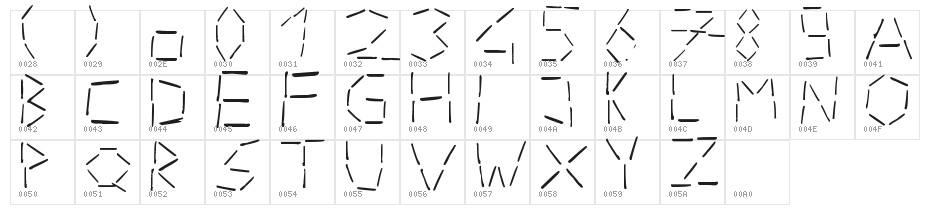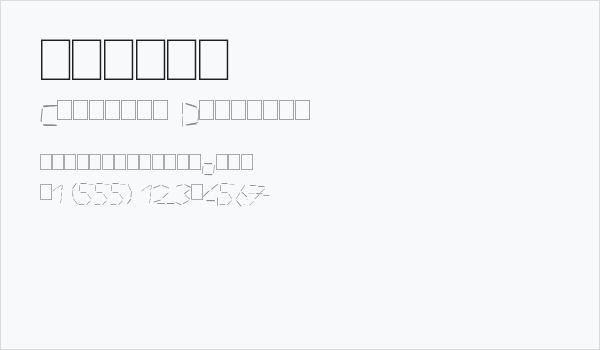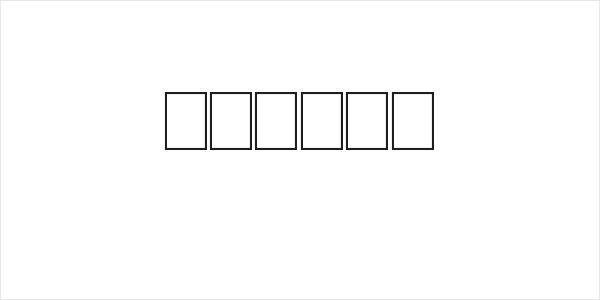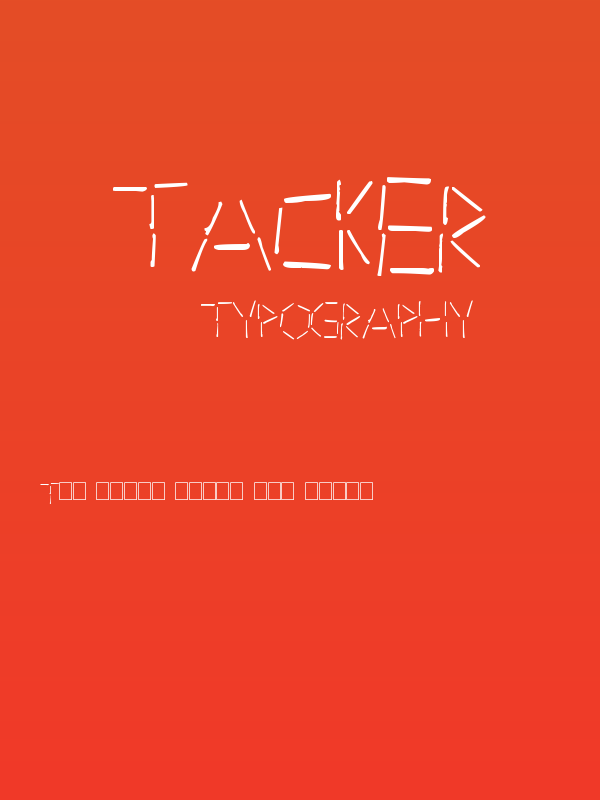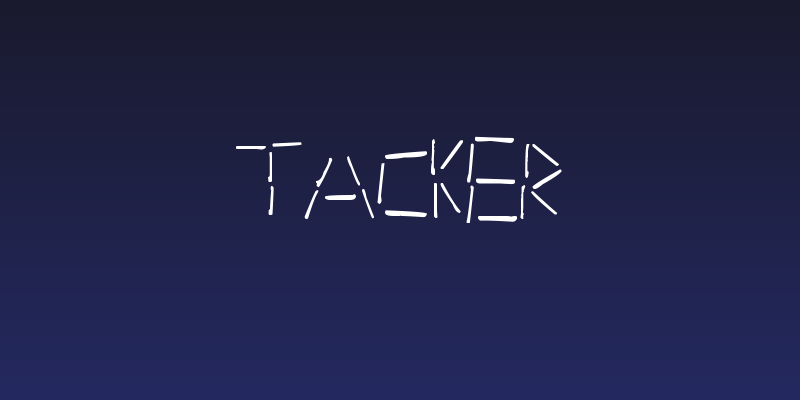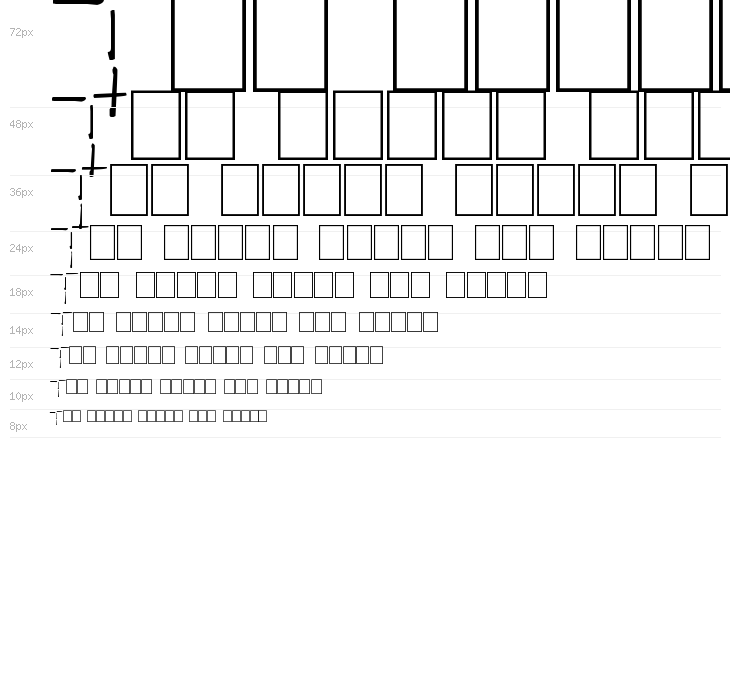
tacker Font
tacker Description
This font features a unique, segmented design that mimics the appearance of dashed lines or stitches. Each character is constructed from a series of short, straight segments, giving it a fragmented and geometric look. The uppercase and lowercase letters maintain a consistent style, with a modern and abstract aesthetic. The numbers and special characters follow the same segmented pattern, ensuring a cohesive appearance across all glyphs. This font is particularly striking and would stand out in any design project that requires a bold and unconventional typeface.
| Use Case | Logos, Posters, Headlines |
| Proposed Projects | Ideal for modern art projects, tech-themed designs, or any creative work that requires a distinctive and unconventional typeface. |